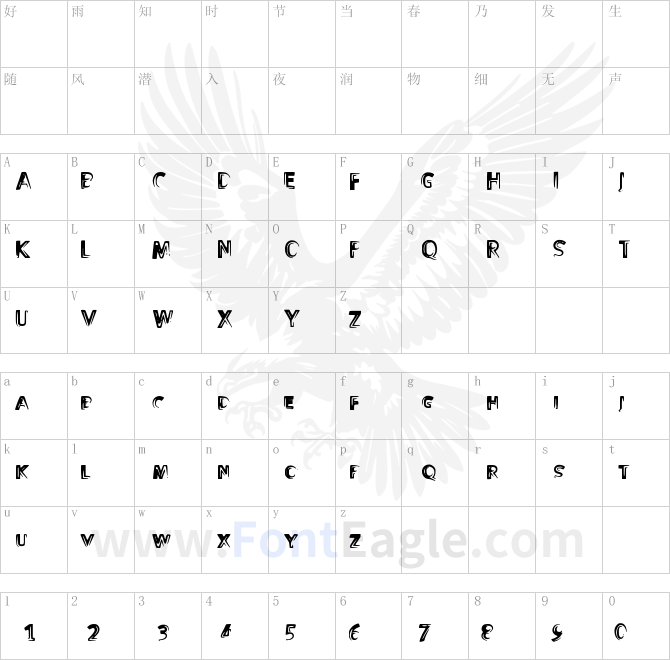
CoolDay is a great font, widely used in graphic design, single-page menu design, poster design and other fields, and is deeply loved by designers.CoolDay download.